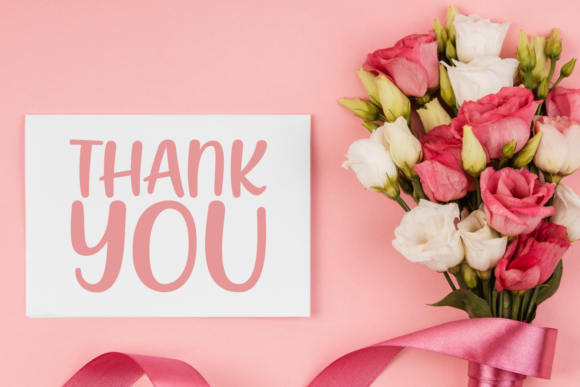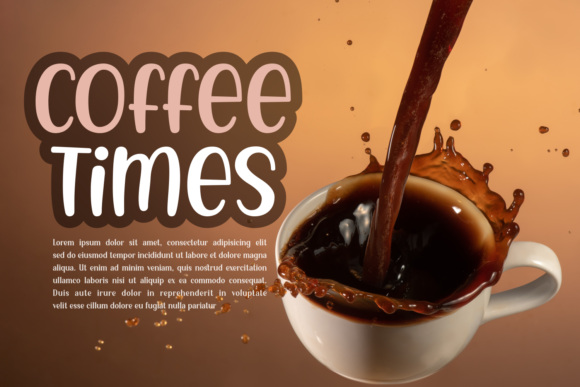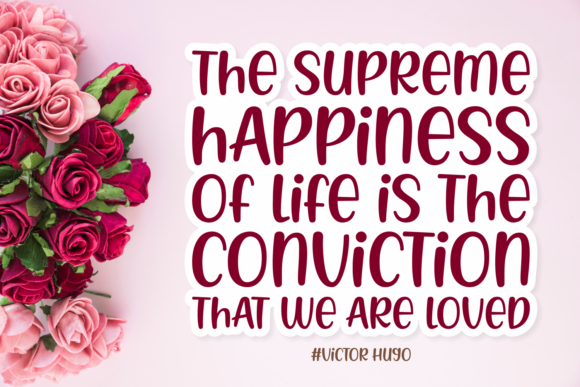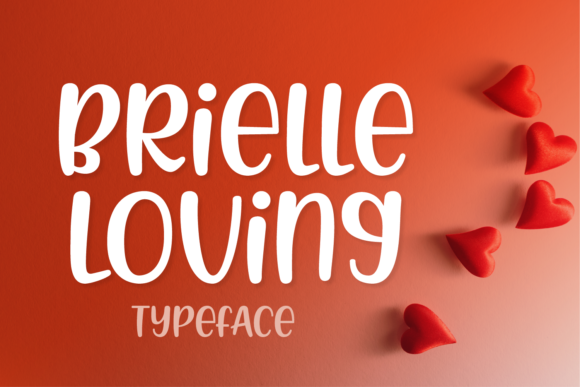
Brielle Loving Font: The Perfect Casual Display Font for Your Creative Projects
In the world of typography, fonts play a crucial role in conveying the tone and personality of a design. Whether you’re working on a branding project, crafting a social media post, or creating a digital artwork, the right font can make all the difference. If you’re looking for a font that exudes a casual and relaxed vibe, look no further than Brielle Loving Font. In this article, we’ll dive into the features and benefits of Brielle Loving Font, and explore how it can elevate your creative projects.
What is Brielle Loving Font?
Brielle Loving Font is a casual and neat display font designed to add a touch of informality to your designs. Its unique style and casual vibe make it an excellent choice for projects that require a relaxed and approachable tone. Whether you’re creating a logo, a social media graphic, or a digital artwork, Brielle Loving Font is sure to make your design stand out.
Key Features of Brielle Loving Font
- Unique and Quirky Style: Brielle Loving Font boasts a distinctive and quirky style that sets it apart from other fonts. Its informal tone and casual vibe make it perfect for designs that require a personal touch.
- Highly Readable: Despite its casual style, Brielle Loving Font is highly readable, even at smaller font sizes. This makes it an excellent choice for body text, headings, and titles.
- Multilingual Support: Brielle Loving Font supports multiple languages, making it a great choice for designers working on international projects.
- Easily Customizable: Brielle Loving Font is easily customizable, allowing you to adjust the font size, color, and style to suit your design needs.
Benefits of Using Brielle Loving Font
So, why should you choose Brielle Loving Font for your creative projects? Here are just a few benefits of using this versatile font:
- Adds a Personal Touch: Brielle Loving Font adds a personal touch to your designs, making them more relatable and engaging.
- Perfect for Casual Designs: If you’re working on a design that requires a casual tone, Brielle Loving Font is an excellent choice.
- Great for Branding and Marketing: Brielle Loving Font is perfect for branding and marketing projects, as it helps to create a friendly and approachable tone.
How to Use Brielle Loving Font in Your Designs
Using Brielle Loving Font in your designs is easy. Here are a few tips to get you started:
- Pair it with Other Fonts: Brielle Loving Font pairs well with other fonts, including serif and sans-serif fonts. Experiment with different font combinations to create a unique look.
- Use it for Headings and Titles: Brielle Loving Font is perfect for headings and titles, as it adds a touch of personality to your design.
- Adjust the Font Size and Color: Adjust the font size and color to suit your design needs. Brielle Loving Font is highly readable, even at smaller font sizes.
In conclusion, Brielle Loving Font is a versatile and casual display font that’s perfect for designers and crafters looking to add a personal touch to their designs. Its unique style, high readability, and multilingual support make it an excellent choice for a wide range of creative projects. Whether you’re working on a branding project, crafting a social media post, or creating a digital artwork, Brielle Loving Font is sure to elevate your design and help you achieve your creative goals.